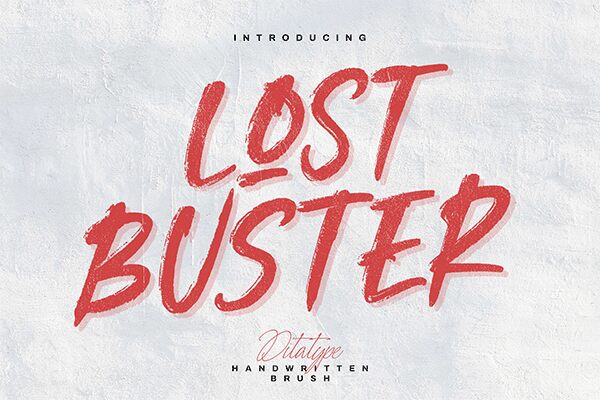
Lost Buster, a captivating brush font designed by Ditatype, exudes a vibrant, expressive energy. Its dynamic strokes and bold, sweeping shapes create a striking visual impact, evoking a sense of movement and spontaneity. The font's rugged, yet refined aesthetic lends itself to a wide range of design applications, from modern branding and packaging to eye-catching editorial layouts.
The versatility of Lost Buster allows it to seamlessly integrate into various creative projects. Its unique character and personality make it an excellent choice for headlines, logotypes, and attention-grabbing display text. The font's versatility extends to its ability to effortlessly transition between playful, casual contexts and more sophisticated, refined design environments.